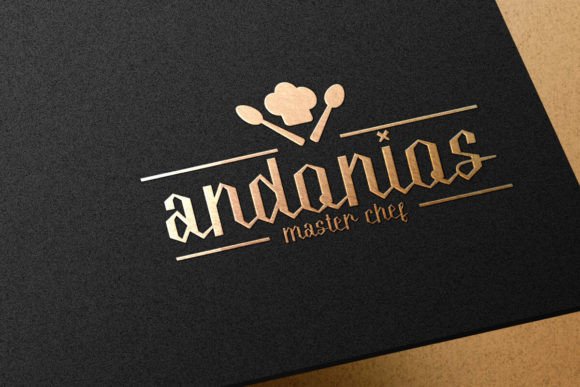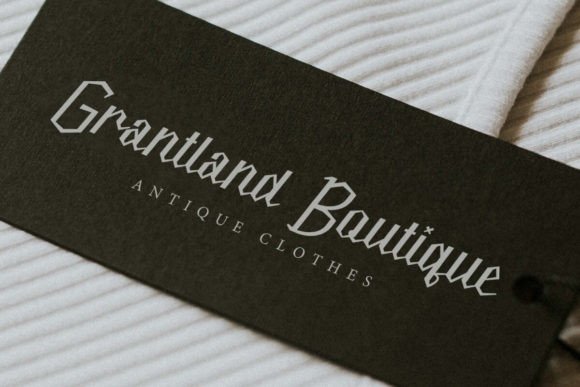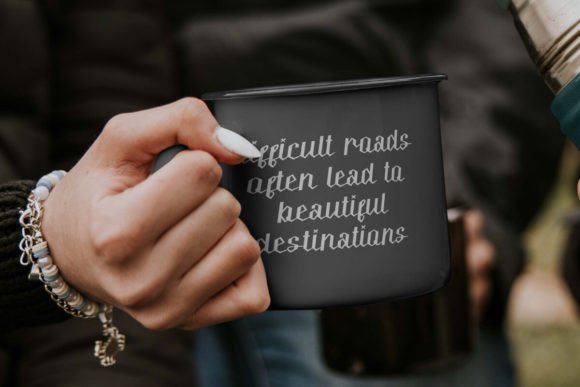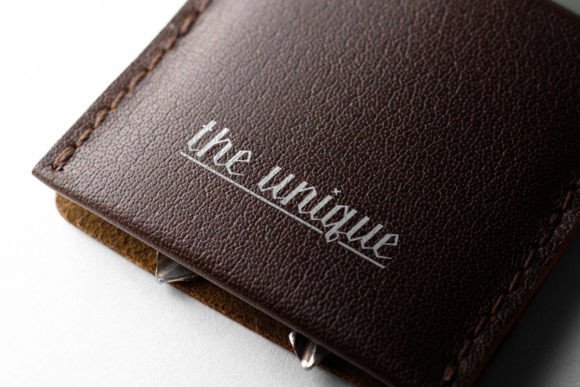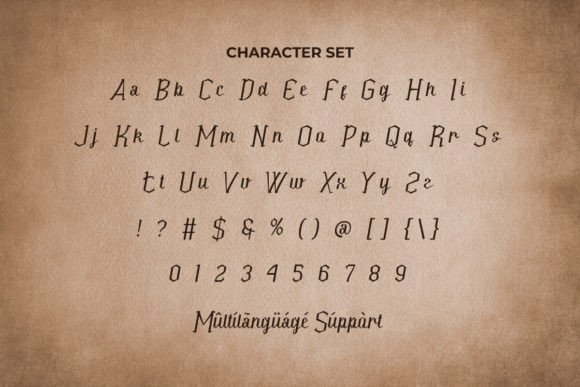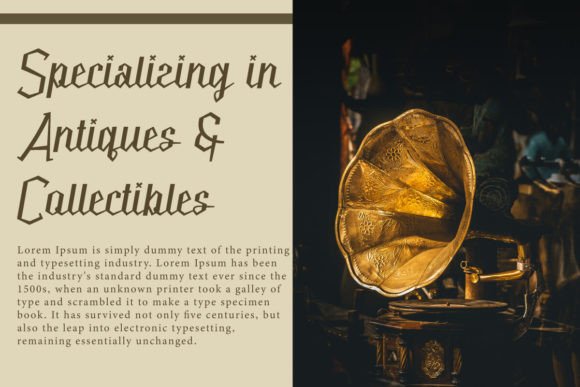
Discover the Timeless Charm of Antique Collection Font
Are you a designer or crafter looking for a unique and vintage touch to add to your creative projects? Look no further than the Antique Collection Font, a stunning script font that exudes an antique feel like no other. With its distinctive hexagonal letterforms and sharp lines, this font is sure to make your designs stand out from the crowd.
A Font Like No Other
The Antique Collection Font is a true one-of-a-kind, with a unique appearance that is both eye-catching and timeless. The font’s hexagonal letterforms give it a quirky and charming feel, while the sharp lines add a touch of sophistication and elegance. Whether you’re looking to create a brand logo, catalog, or invitation, this font is sure to add a touch of vintage charm to your design.
One of the best things about the Antique Collection Font is its versatility. With its unique and stylish appearance, this font can be used for a wide range of creative projects, including:
- Brand logos: Add a touch of vintage charm to your brand’s logo and make it stand out from the competition.
- Catalogs: Create eye-catching catalogs that showcase your products in style.
- Covers: Design stunning book covers, magazine covers, or CD covers that grab attention.
- Embossed designs: Add a touch of luxury to your designs with embossed effects.
- Headers: Create stunning headers for your website, blog, or social media channels.
- Invitations: Design beautiful and unique invitations for weddings, parties, or other special occasions.
- Labels: Create eye-catching labels for your products or packaging.
- Packaging design: Add a touch of vintage charm to your product packaging.
- Quotes: Design stunning quote graphics that inspire and motivate.
- Screen print: Create unique and stylish screen prints for t-shirts, tote bags, or other products.
- Stationery: Design beautiful and unique stationery, including letterheads, notecards, and more.
- Stickers: Create eye-catching stickers that grab attention.
- Titles: Design stunning titles for movies, TV shows, or books.
- Websites: Add a touch of vintage charm to your website’s design.
Why Choose Antique Collection Font?
So why choose the Antique Collection Font for your creative projects? Here are just a few reasons:
- Unique and stylish: This font is unlike any other, with a unique and stylish appearance that will make your designs stand out.
- Versatile: With its wide range of uses, this font is perfect for designers and crafters who need a font that can adapt to different projects.
- Timeless: The antique feel of this font ensures that it will never go out of style, making it a great investment for your design library.
Tips for Using Antique Collection Font
Here are a few tips for getting the most out of the Antique Collection Font:
- Experiment with different sizes and colors: This font looks great in a range of sizes and colors, so don’t be afraid to experiment and find the perfect combination for your design.
- Pair with other fonts: This font pairs well with other fonts, so try combining it with a sans-serif font for a stylish contrast.
- Use it sparingly: While this font is stunning, it can be overwhelming if used too much. Use it sparingly to add a touch of vintage charm to your design.